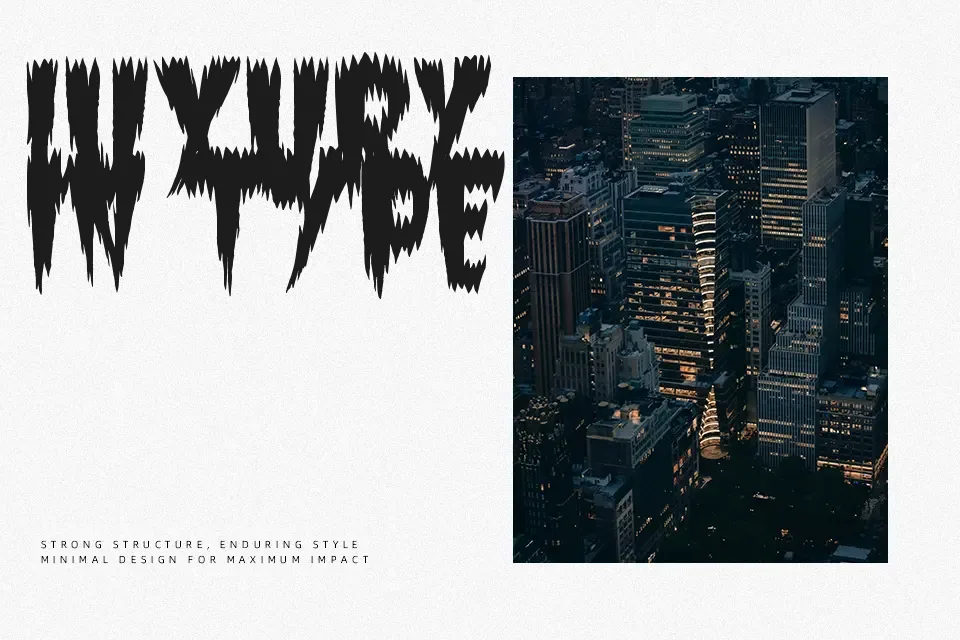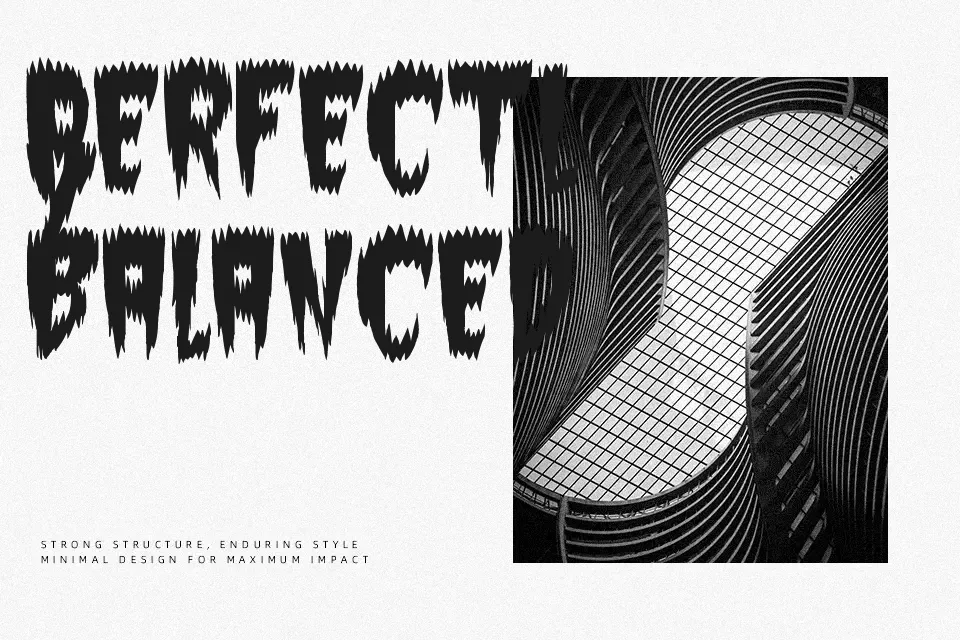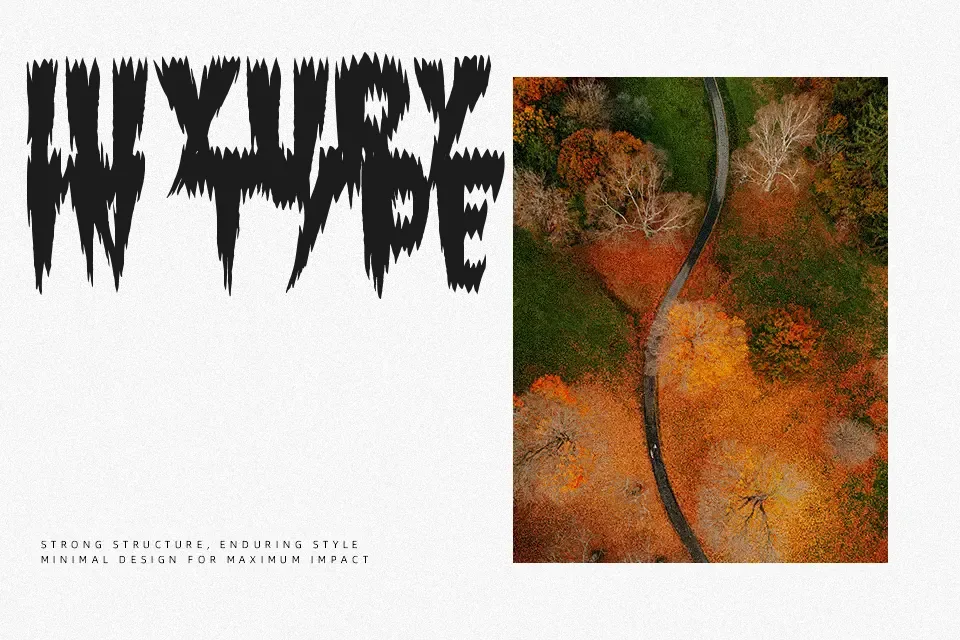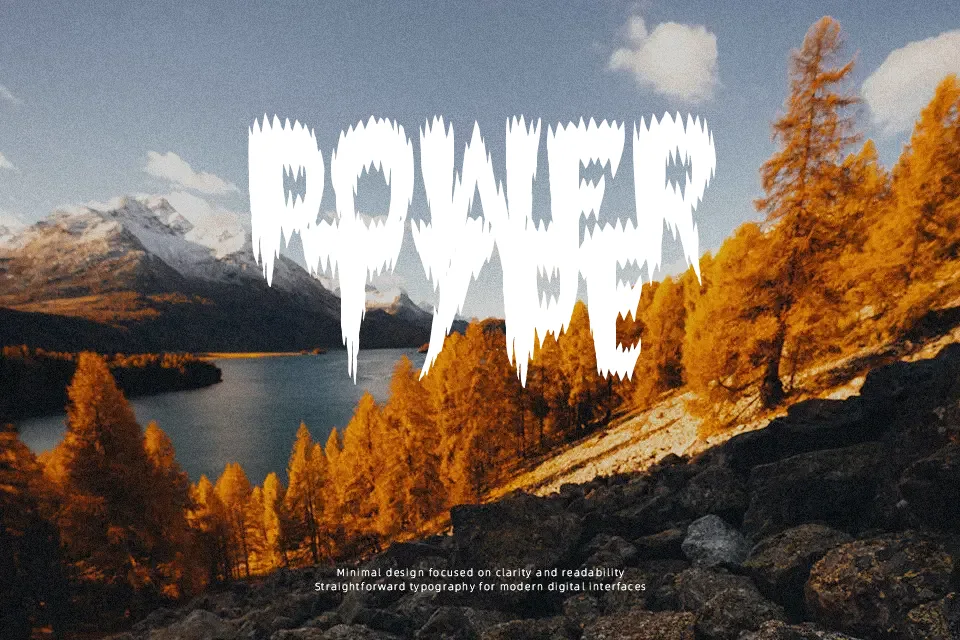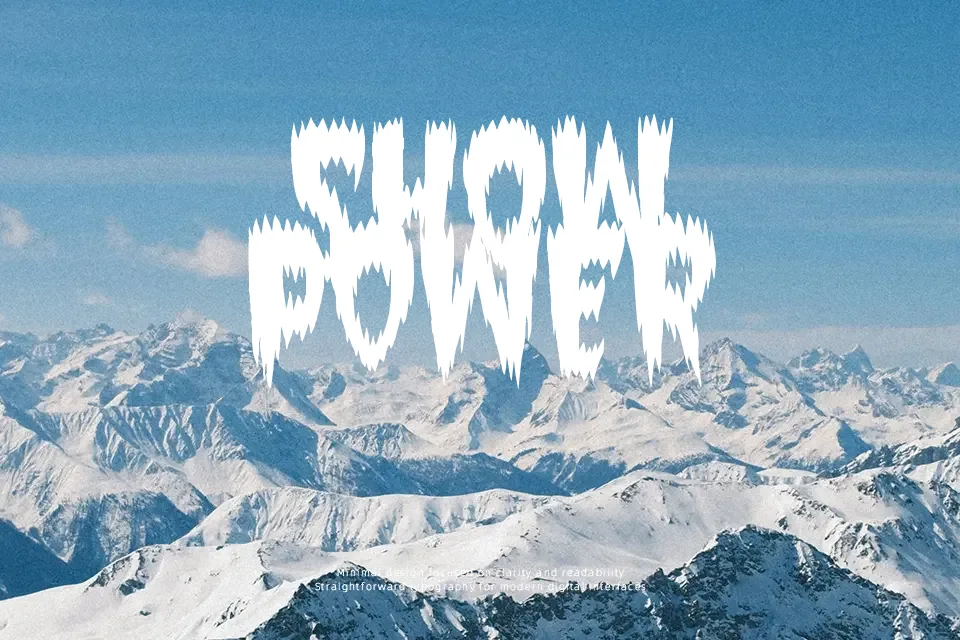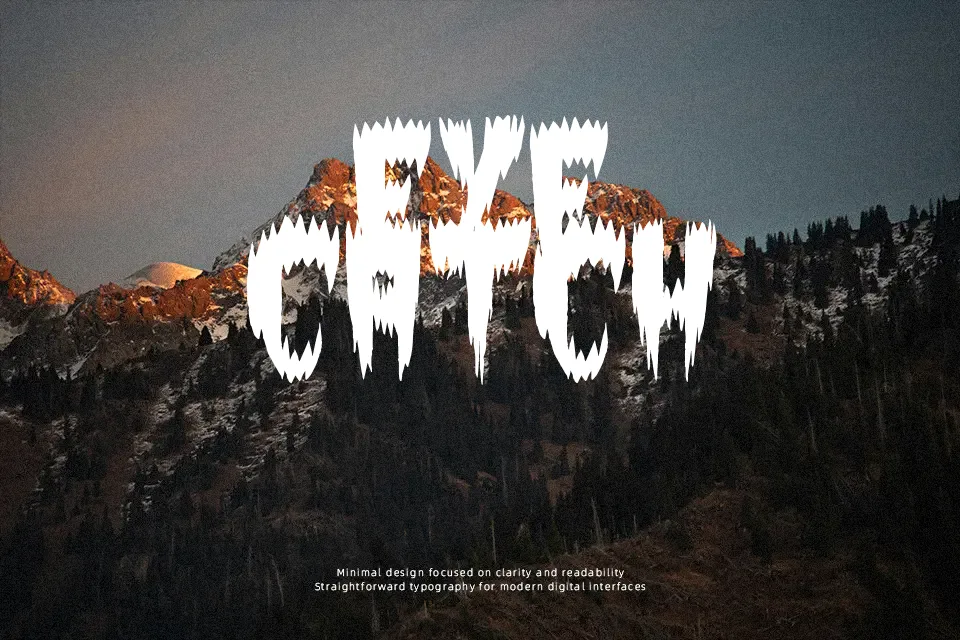
Super Weird Font
Super Weird Font features heavily distorted display silhouettes characterized by irregular contours, sharp angular cuts, and abrupt transitions in stroke thickness. Spacing between characters is naturally tight and asymmetrical, reinforcing an uneasy, chaotic rhythm across short headlines. Proportions deviate significantly from standard typography, with stretched stems and compressed counters that prioritize theatrical impact over conventional symmetry. While the letterforms command attention in large cinematic titles, Halloween branding, and atmospheric game graphics, the dense decorative detailing causes legibility to break down at smaller sizes. Consequently, the typeface remains unsuited for body paragraphs or extended text layouts, excelling purely when deployed as a specialized titling solution.
– Horror movie title cards
– Halloween event posters
– Dark fantasy video game headlines
– Themed apparel graphics
– Long body text paragraphs
– Mobile app interface labels
– Corporate business documents
– Dense editorial print layouts
Perfect for film, gaming, and halloween, with a creative and decorative style.